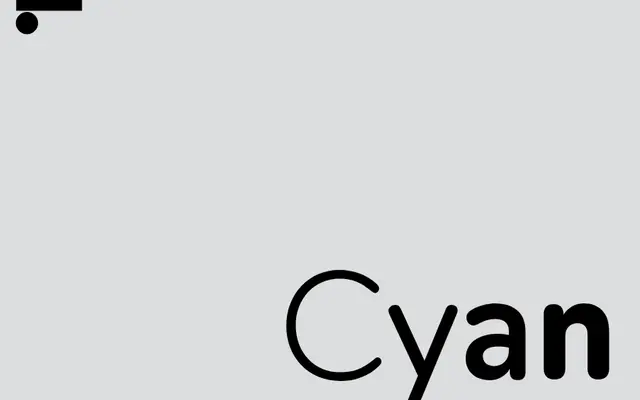
LL Cyan
A humanist sans drawn from Jan Tschichold's Redis-nib writing exercises, developed by Aurèle Sack into a 16-style family with three monospaced weights.
Rooted in a 1942 Tschichold school writing exercise that Aurèle Sack first encountered at ECAL in 2003, this family trades the geometric tendency common to Redis-nib alphabets for the softer curves of Gill and Johnston. Contrast was introduced to smooth joints and the terminals were carefully calibrated, preserving the warmth and rhythm of the handmade source. Each of the five proportional weights includes three sets of framed numerals and uppercase alphabets, and the three monospaced weights sit on the wider end of the genre with a raw, technical character.
Derived from Jan Tschichold's Redis-nib writing exercises, LL Cyan sits within the humanist sans tradition, drawing closer to Gill and Johnston than geometric models, with introduced contrast and rounded terminals reinforcing its warmth.